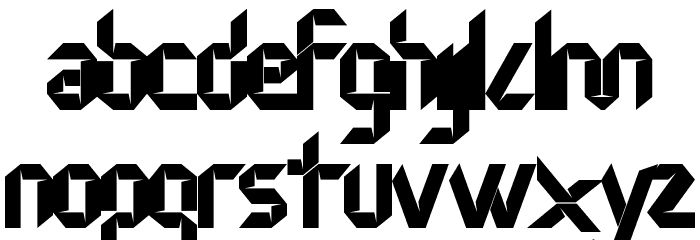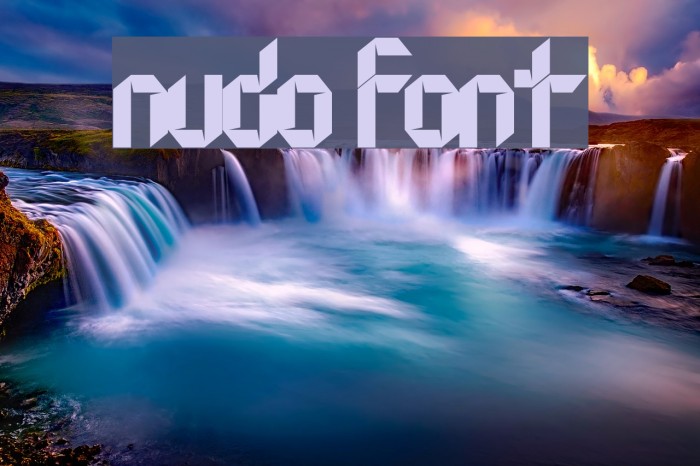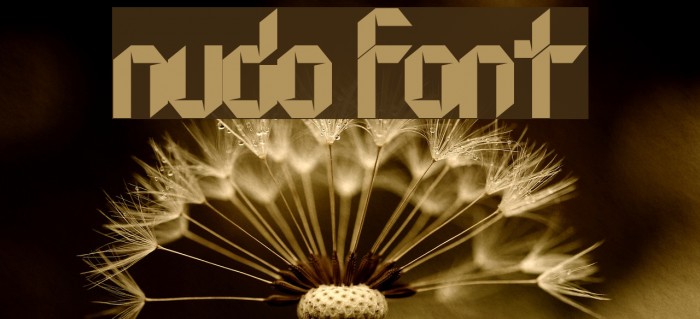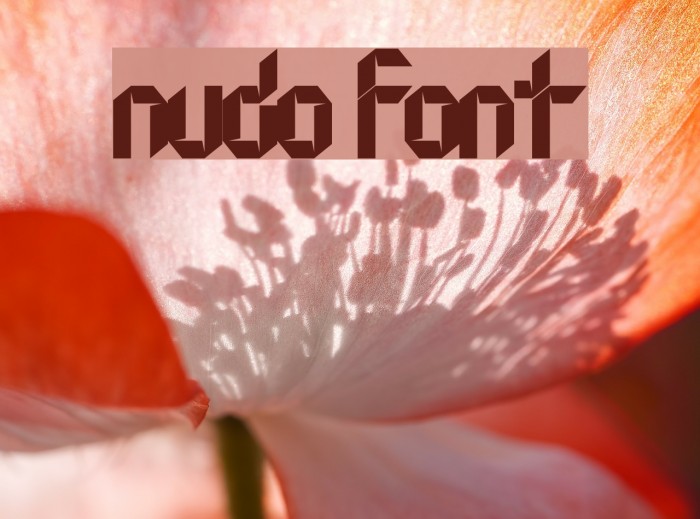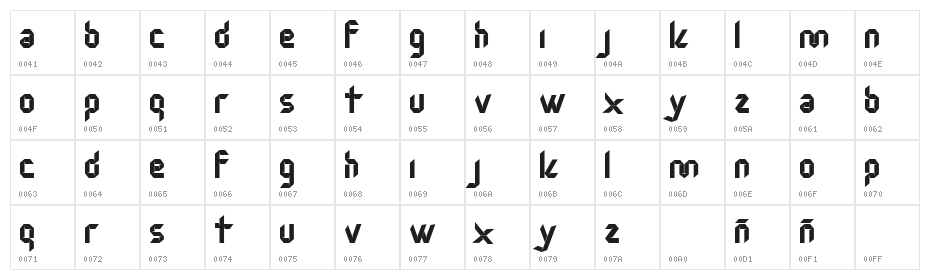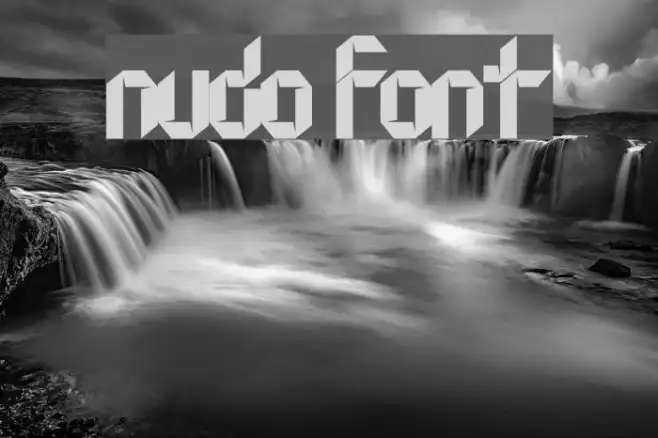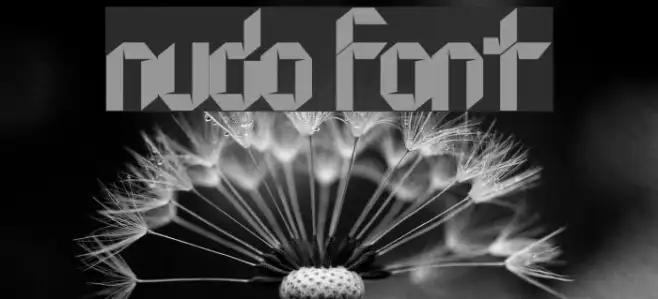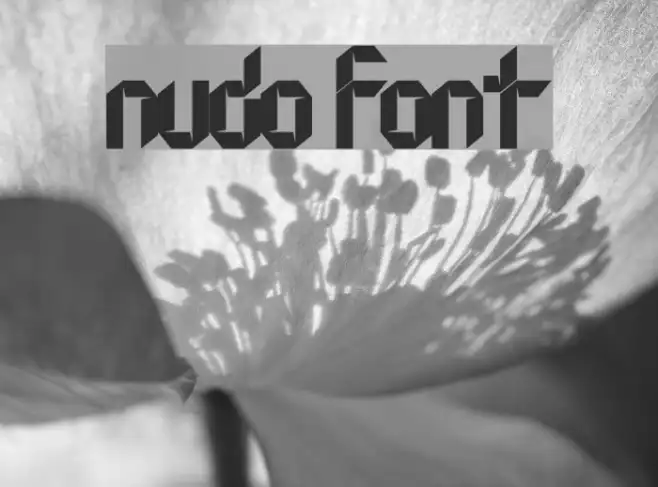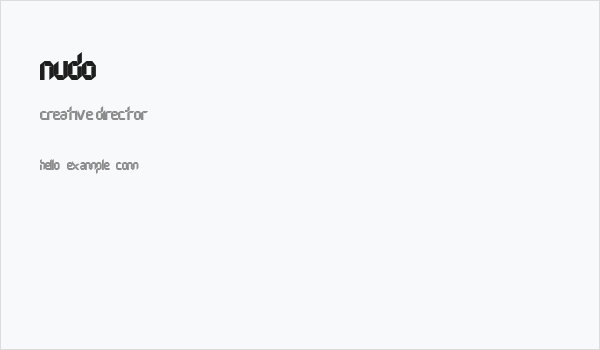
Nudo Font
This font features a bold, geometric design with sharp angles and a distinct, edgy appearance. The characters are constructed with thick, block-like shapes that create a strong visual impact. The style is highly modern and abstract, with each letterform appearing almost as a puzzle piece, fitting together in a unique and artistic manner. The font's design emphasizes a sense of movement and dynamism, making it stand out in any context. The angular cuts and bold strokes give it a futuristic and industrial feel, suitable for projects that require a strong, commanding presence.
A bold, geometric font with sharp angles and a modern, abstract style.
- Proposed Projects: Ideal for branding, posters, album covers, and any design requiring a bold, modern statement.